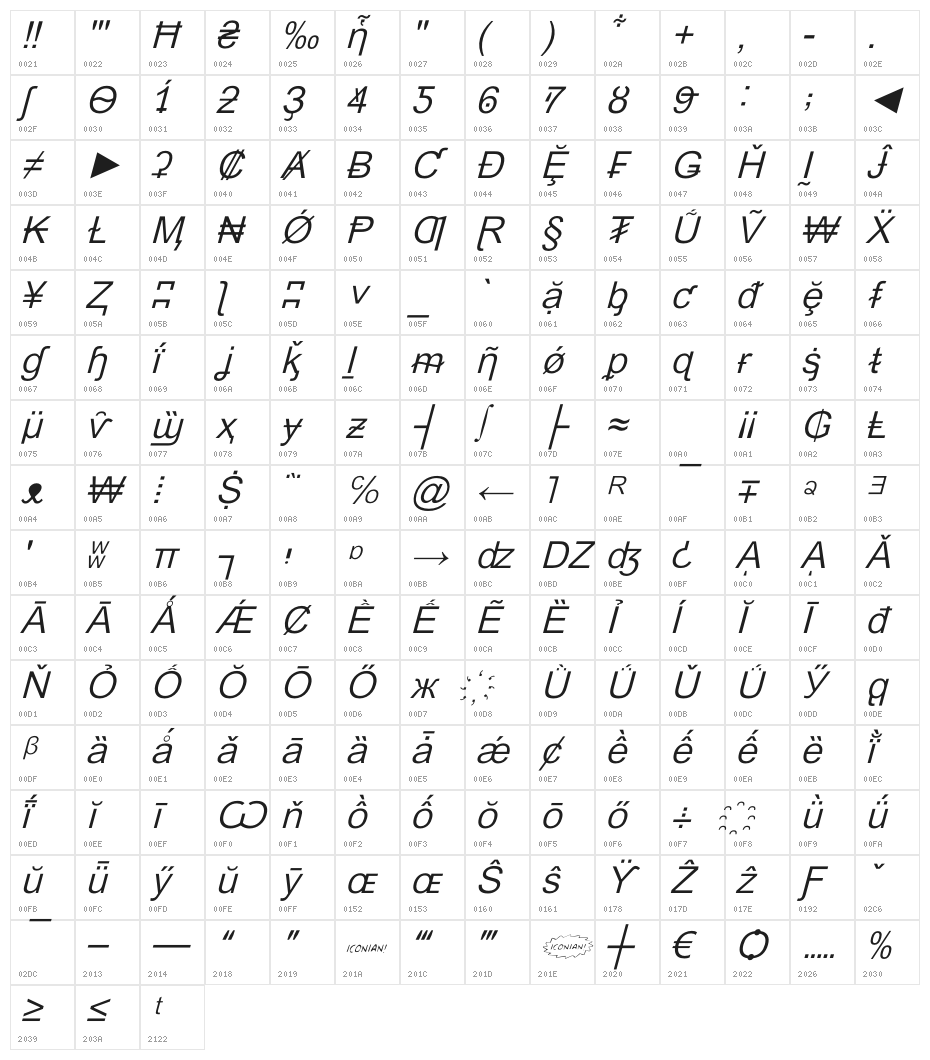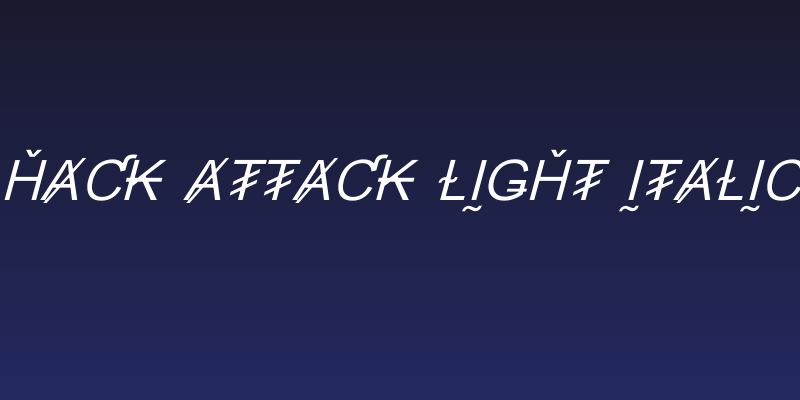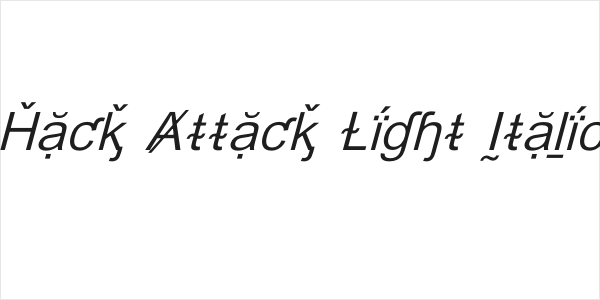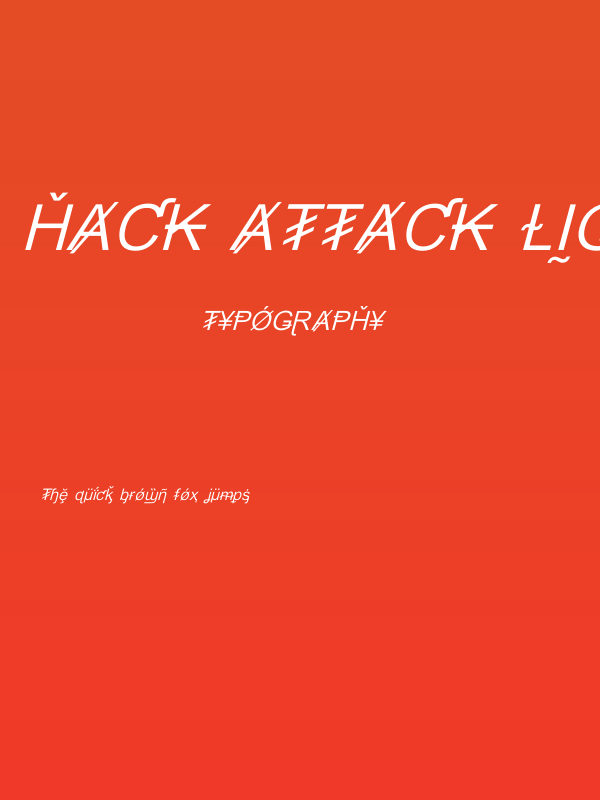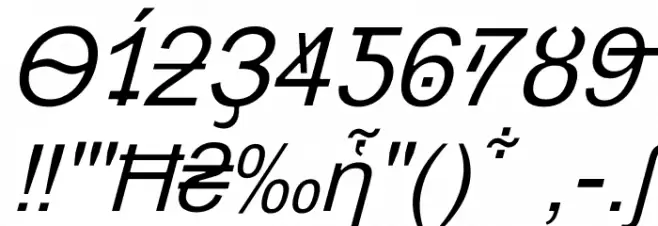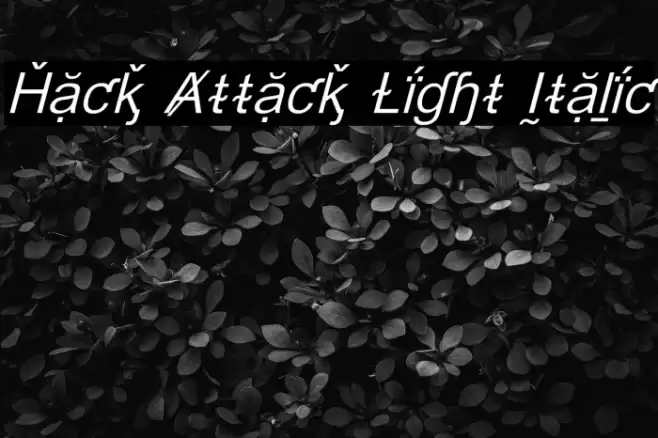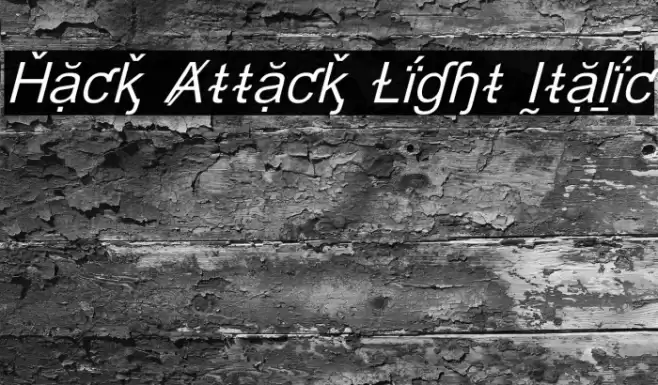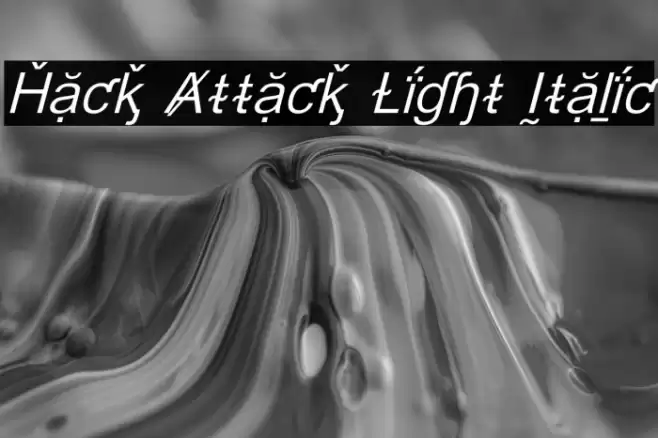
Hack Attack Light Italic Font
This font features a dynamic and modern design with a distinct italic slant, giving it a sense of motion and fluidity. The characters are crafted with a light weight, providing an airy and elegant appearance. The font includes a comprehensive set of accented characters, making it suitable for multilingual use. The strokes are smooth and slightly curved, contributing to its contemporary style. The character spacing is normal, ensuring readability while maintaining a sleek aesthetic. This font is well-suited for projects that require a stylish and sophisticated touch.
| Proposed Projects | Ideal for branding, editorial design, fashion magazines, and digital content that requires a modern and elegant touch. |